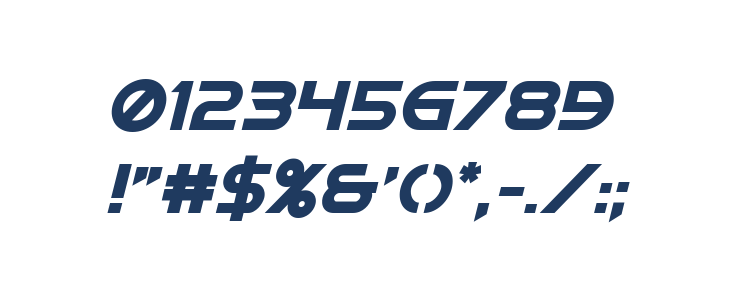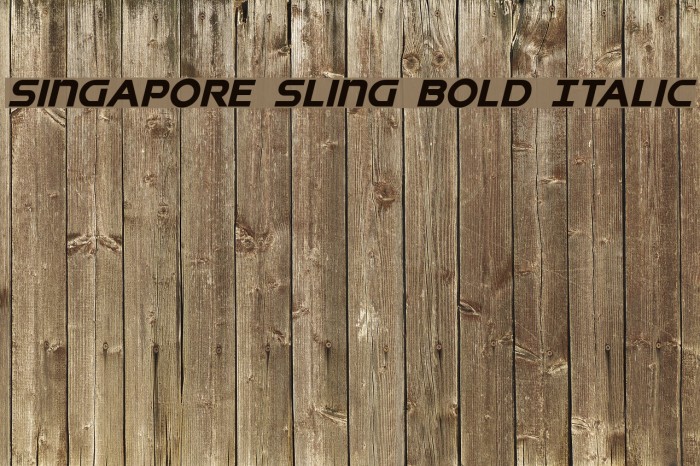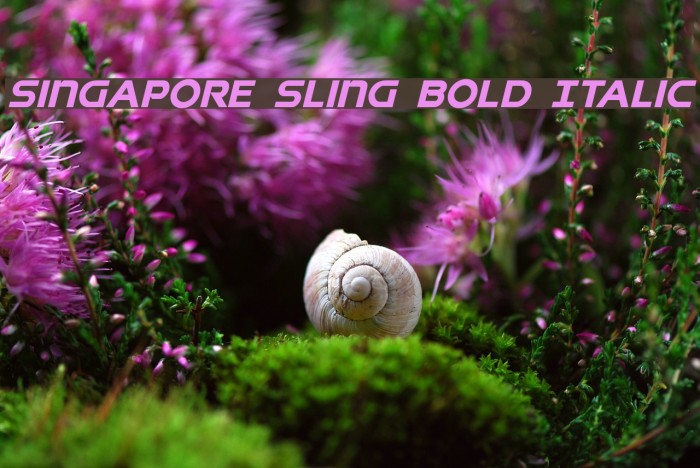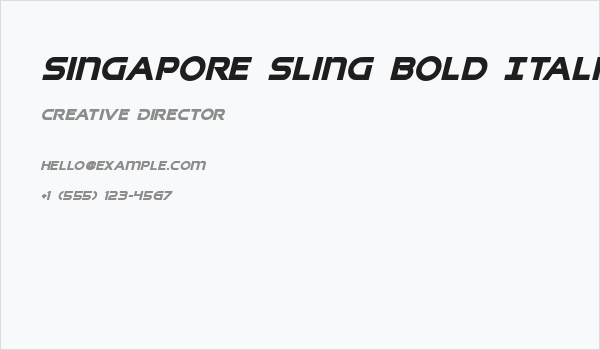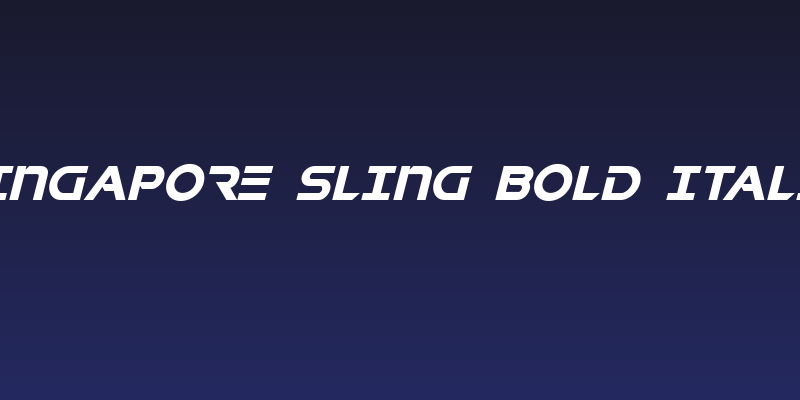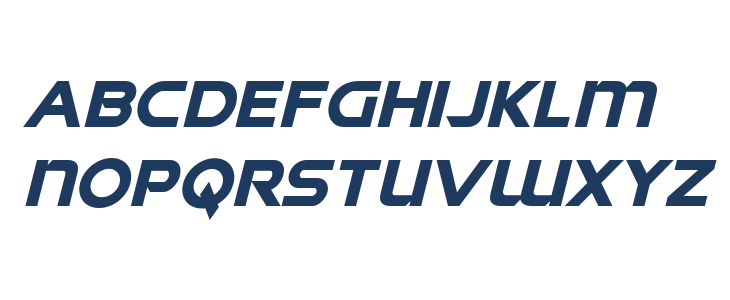
Singapore Sling Bold Italic Font
Singapore Sling Bold Italic Description
This font exhibits a bold and italicized style with a modern and dynamic appearance. The characters are slightly slanted, adding a sense of motion and energy. The strokes are thick and consistent, providing a strong visual impact. The design features unique angular cuts and sharp edges, particularly noticeable in letters like 'Q' and 'R'. The numerals and special characters maintain the same bold and italicized characteristics, ensuring uniformity across all glyphs. This font's distinctive style makes it suitable for attention-grabbing headlines and creative projects.
| Proposed Projects | Ideal for branding, advertising, sports team logos, and dynamic poster designs. |